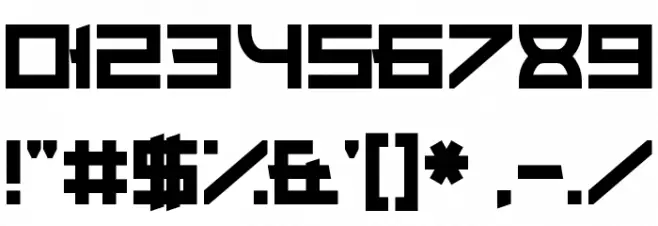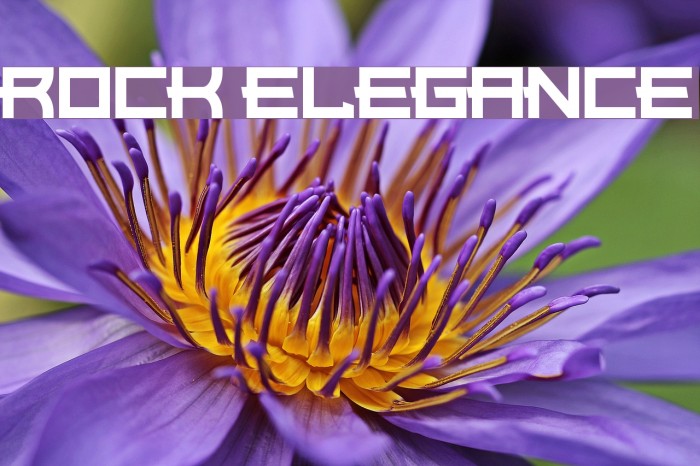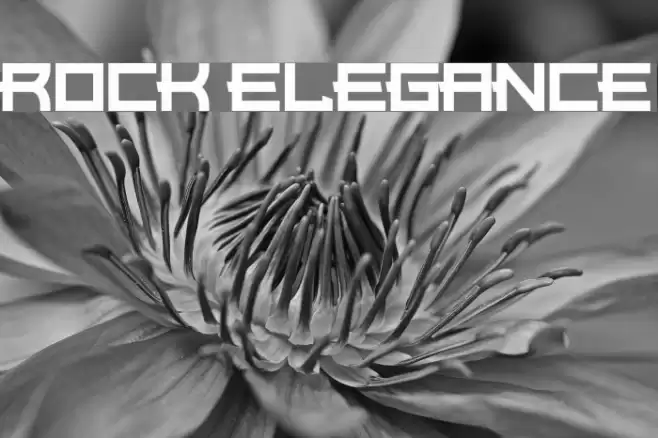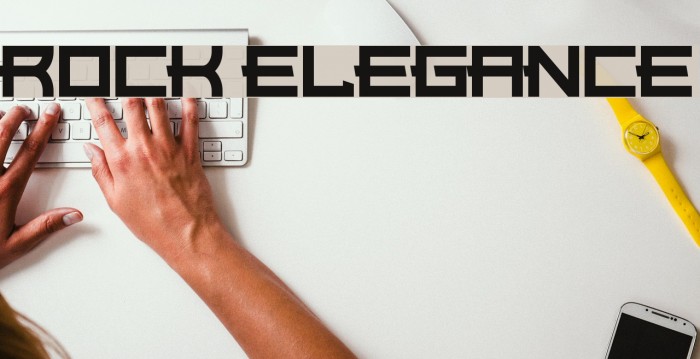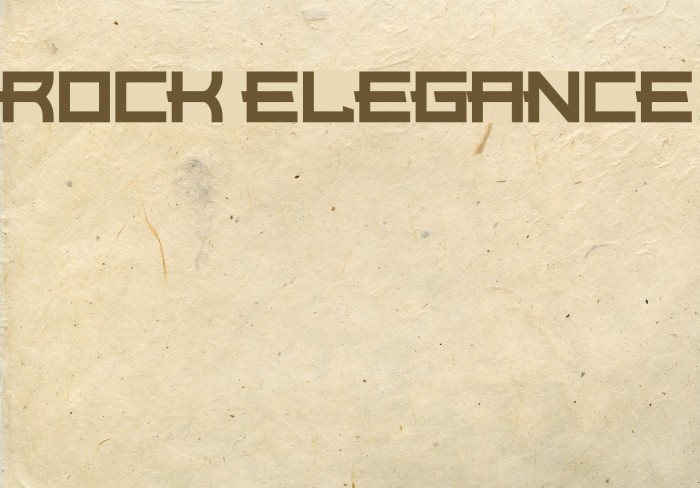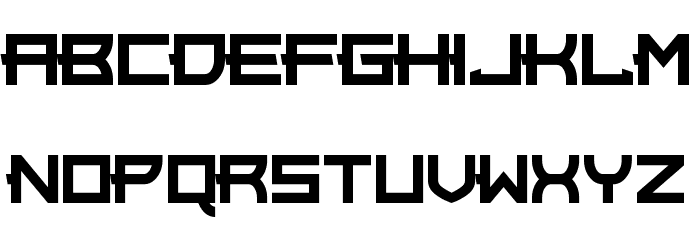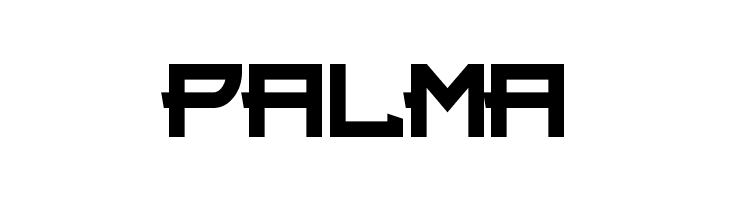
Rock Elegance Font
Rock Elegance Description
This font features a bold and geometric design, characterized by sharp angles and a futuristic aesthetic. The uppercase letters are uniform in height, with distinct angular cuts that give a modern and edgy feel. The lowercase letters maintain the same angular style, ensuring consistency throughout the typeface. Numbers are designed with the same boldness, making them stand out with clarity. Special characters are crafted to match the overall geometric theme, providing a cohesive look. This font is ideal for projects that require a strong visual impact, such as branding, posters, or digital media.
A bold, geometric font with sharp angles and a futuristic style from Uncategorized fonts.
• Proposed Projects: Ideal for branding, posters, digital media, and any project needing a strong visual impact.
• Bold: Yes
• Italic: No
• Weight: Bold
• Width: Normal
• Character Spacing: Normal
• Contrast: Low
• Overall Style: Modern
• Use Case: Headlines, Logos